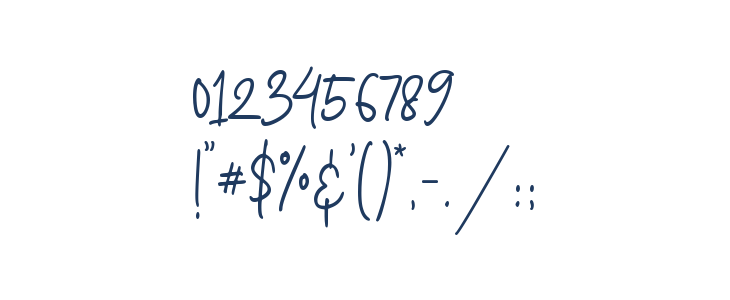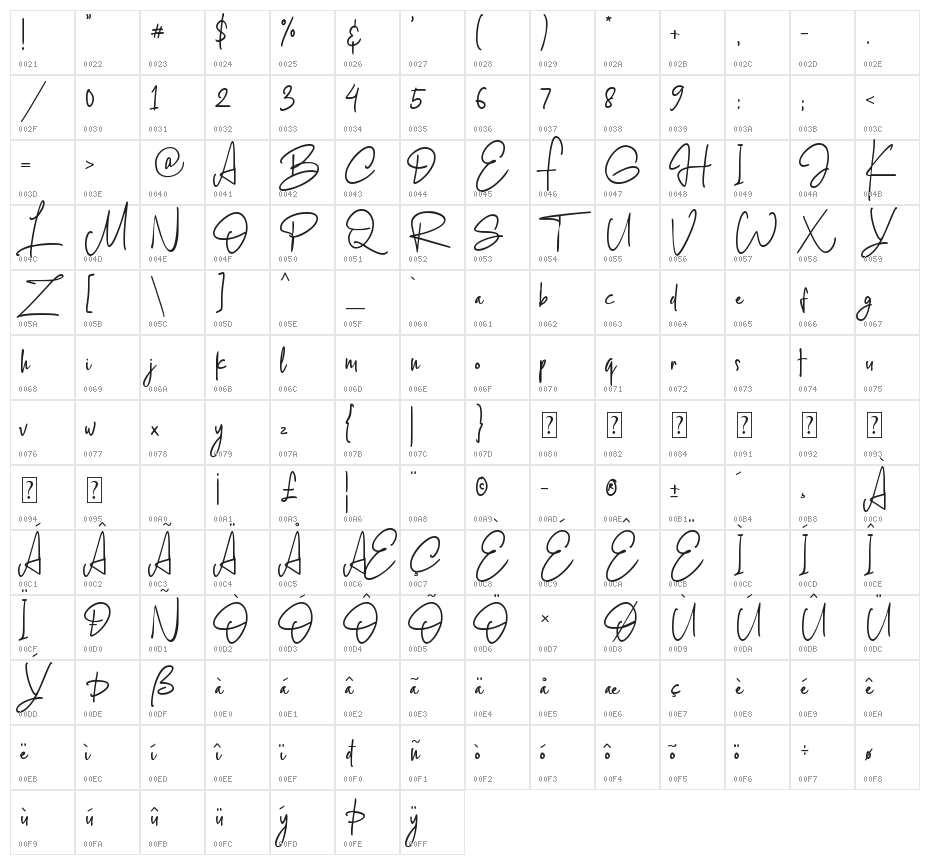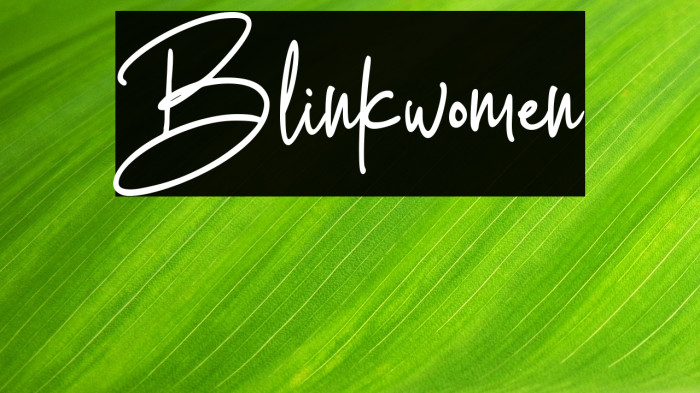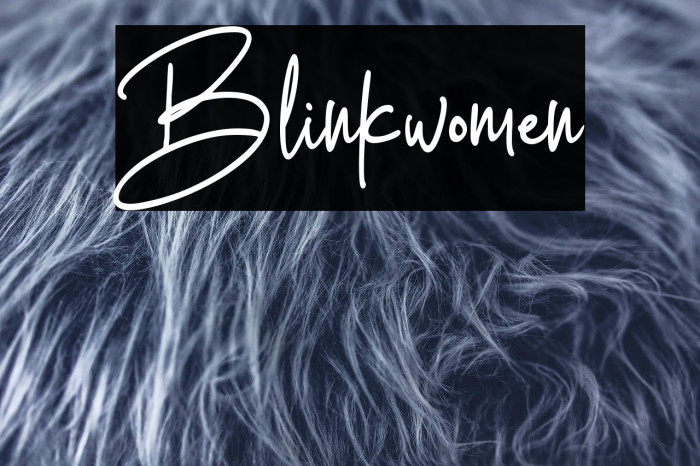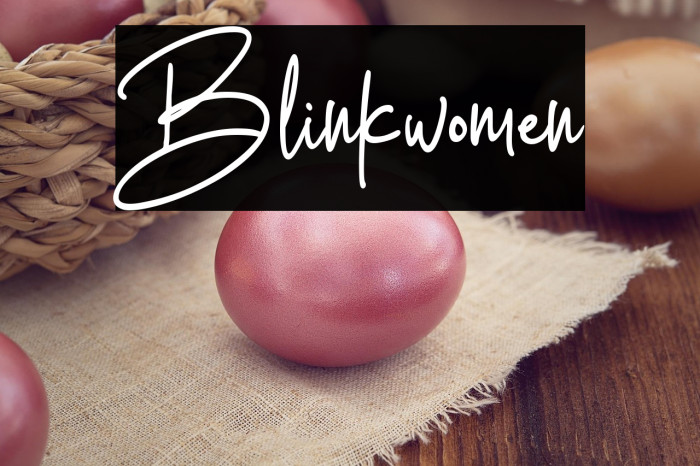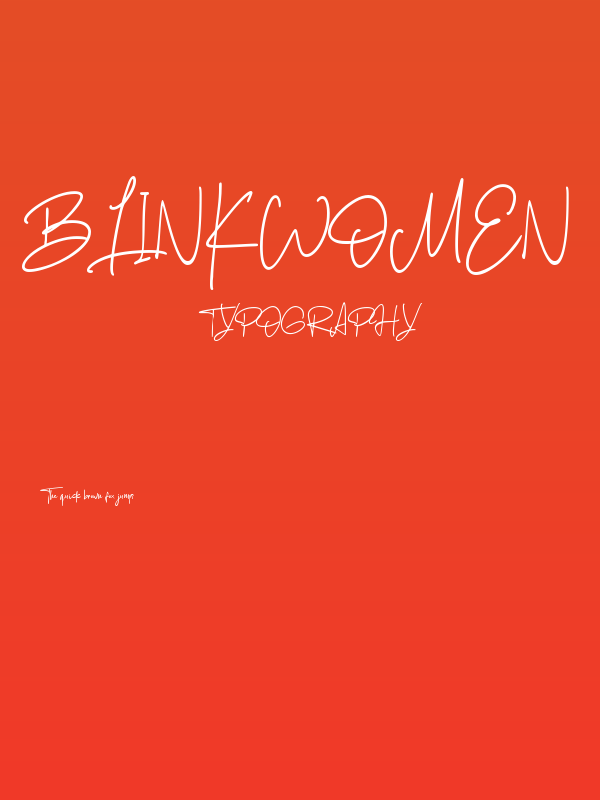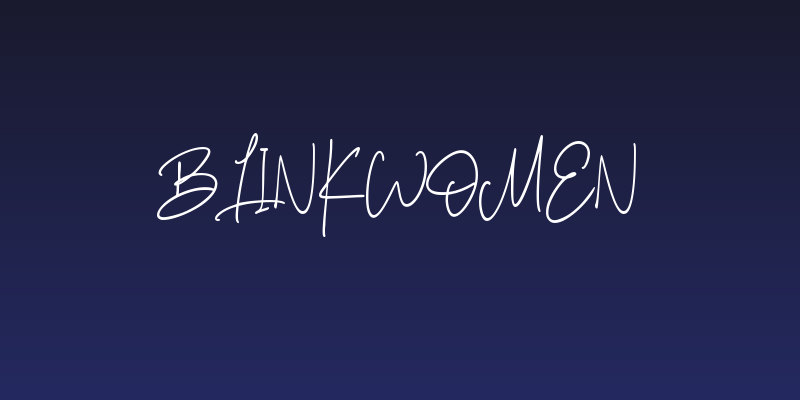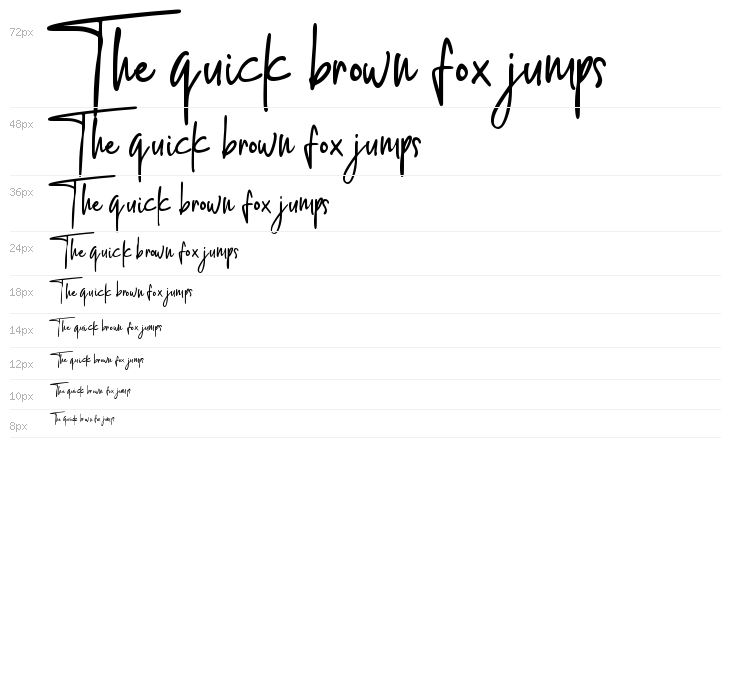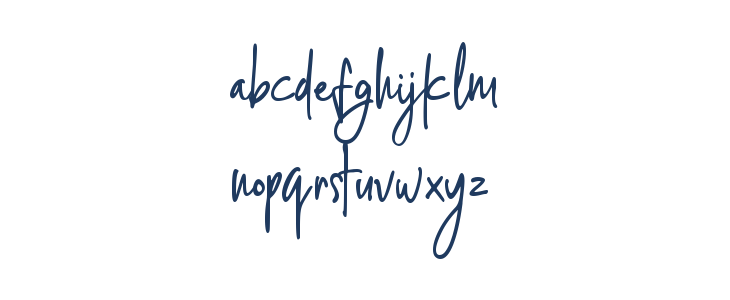
Blinkwomen Font
Blinkwomen Description
This font features a lively and dynamic handwritten style, characterized by its flowing and interconnected letterforms. The uppercase letters exhibit a playful and slightly exaggerated slant, while the lowercase letters maintain a consistent rhythm and fluidity. The numerals are distinct and easy to read, complementing the overall aesthetic. Special characters are creatively integrated, adding to the font's versatility. The strokes are smooth and consistent, with a moderate contrast that enhances readability without compromising the casual, informal feel. This font is ideal for projects that require a personal touch or a sense of spontaneity.
| Proposed Projects | Ideal for greeting cards, invitations, personal branding, and creative projects that require a personal touch. |